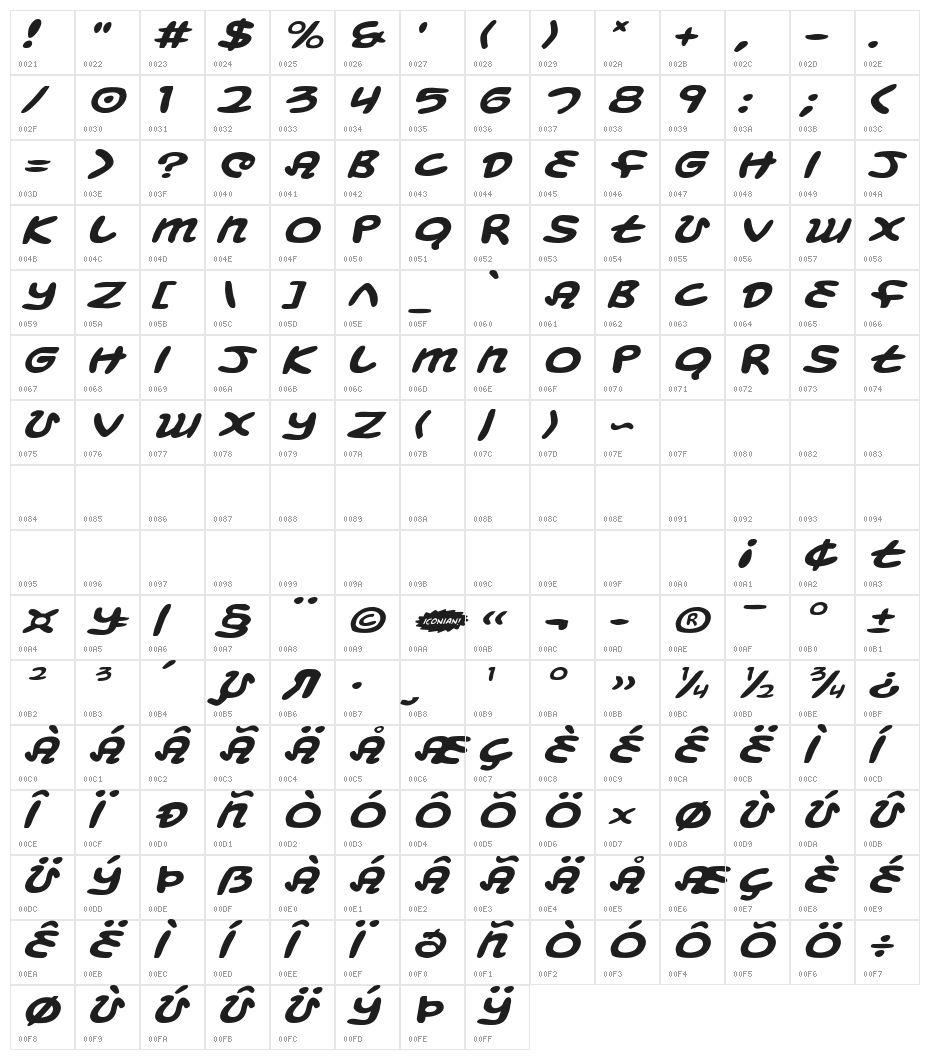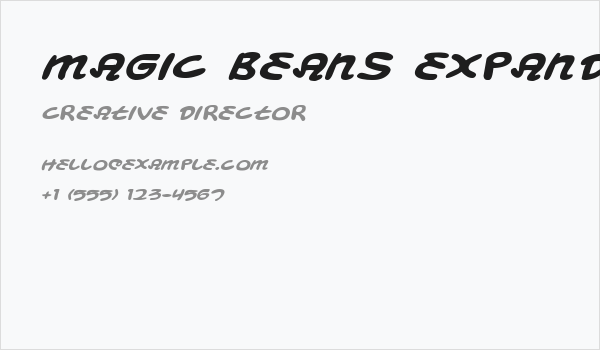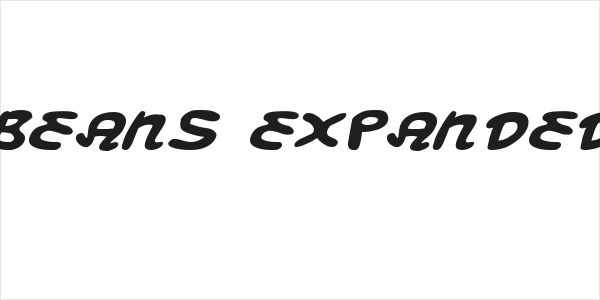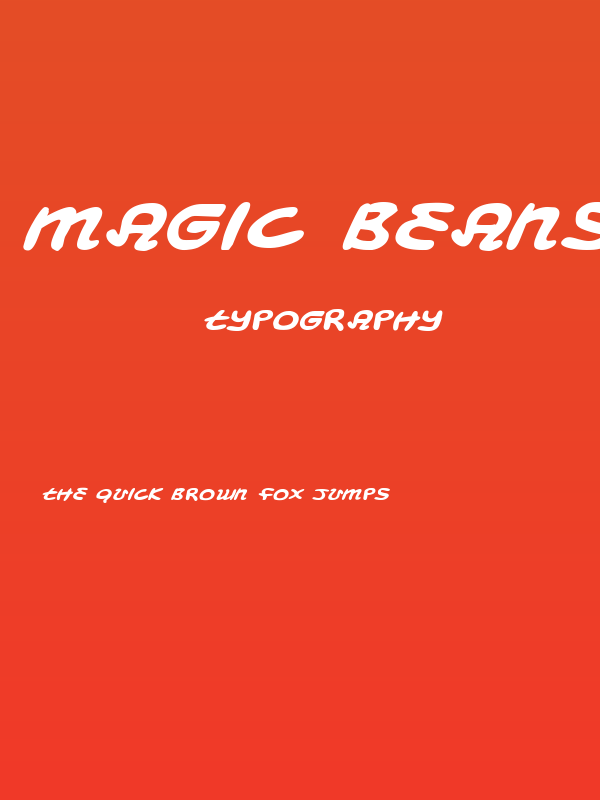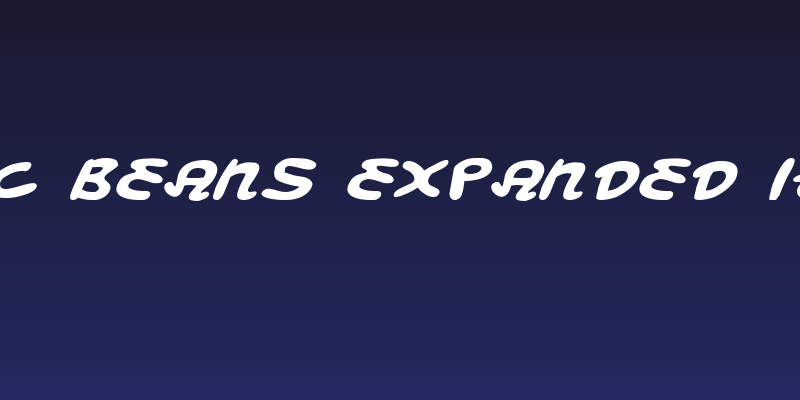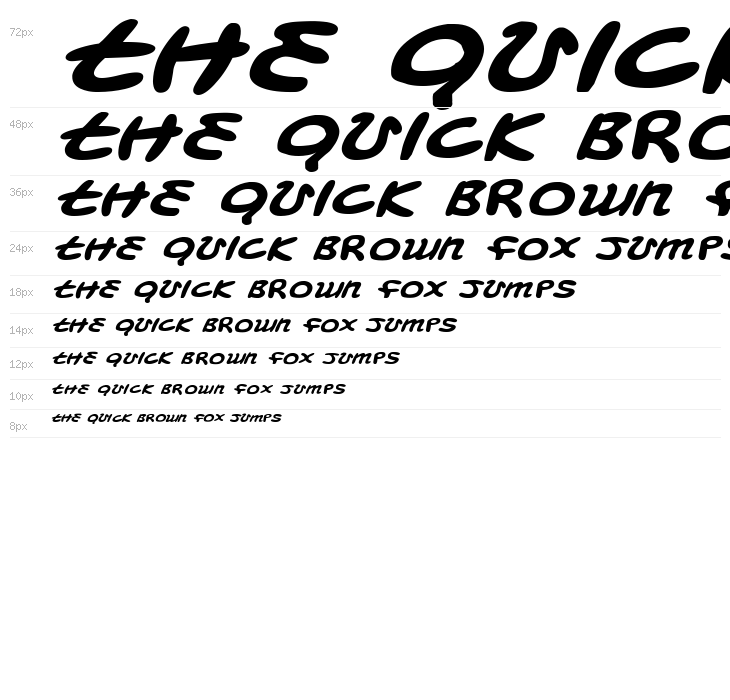
Magic Beans Expanded Italic Font
| Stile generale | Playful, Energetic, Handwritten |
| Caso d'uso | Headlines, Logos, Creative Branding |
| Progetti proposti | Ideal for creative branding, playful headlines, children's books, or any project needing a lively and energetic typeface. |